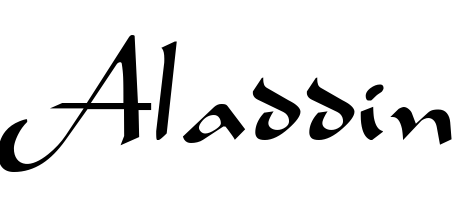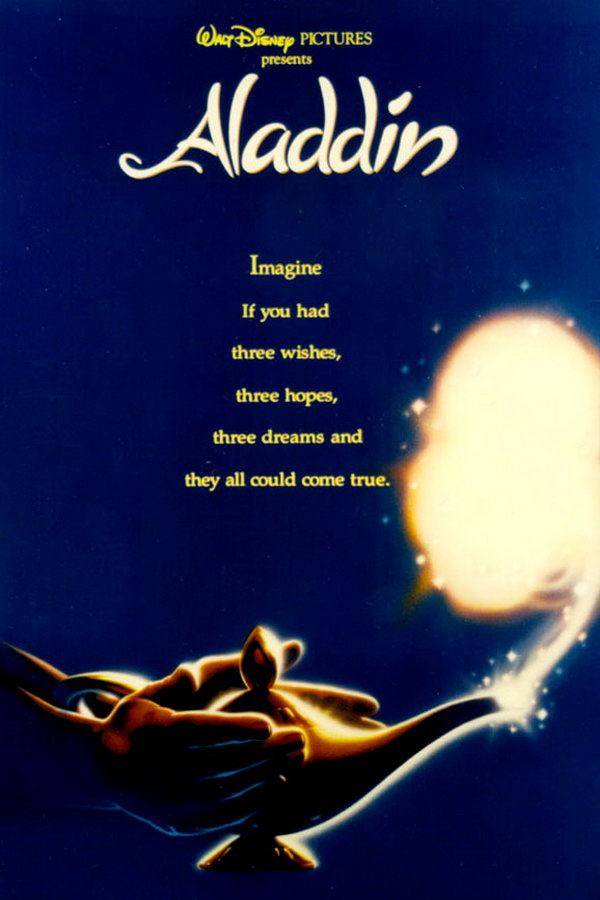
Aladdin Font
FantasyAladdin is a 1992 Disney animated musical fantasy film based on the Arabic folktale of the same name. It follows the story of a young street urchin who uses a genie's magic to win the heart of a princess and defeat an evil sorcerer.